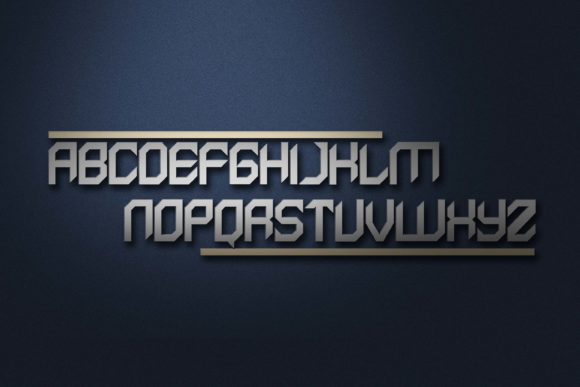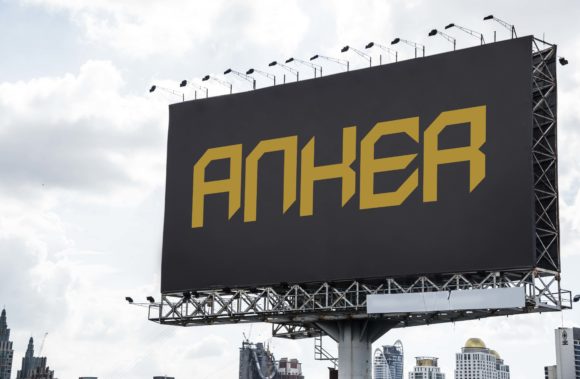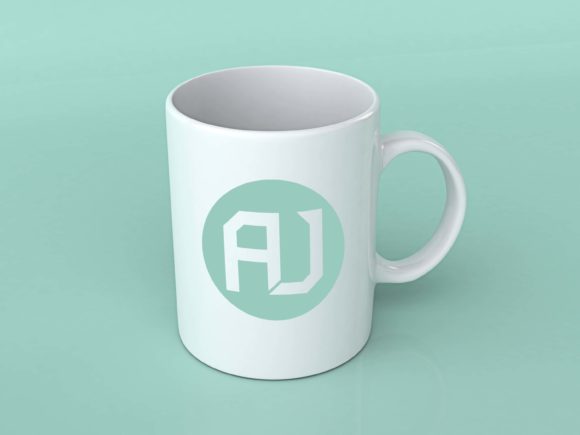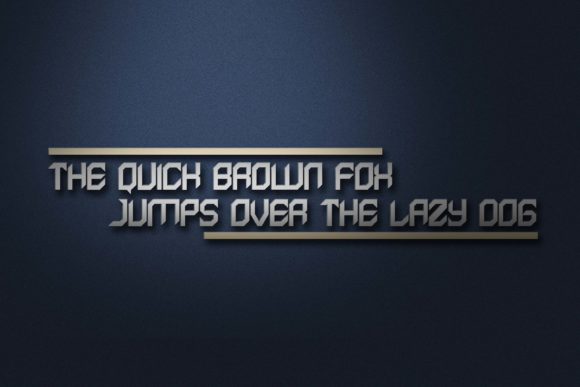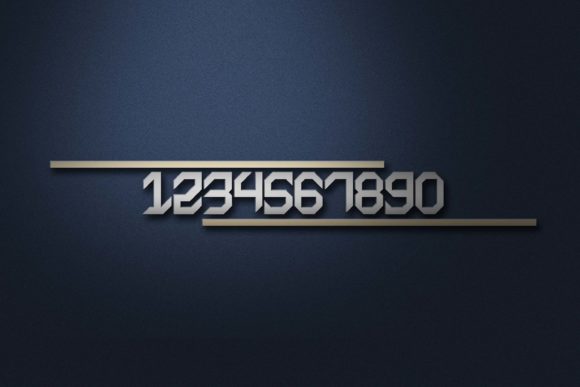
Introducing Anker Remake Font: A Modern Take on a Classic
In the world of typography, few fonts have stood the test of time like the classic “Anker”. With its unique charm and character, Anker has been a favorite among designers and crafters for decades. However, as design trends evolve and technology advances, the need for updated and refined fonts has become increasingly important. That’s where Anker Remake comes in – a font reboot of the original “Anker” that refines both letters, numbers, symbols, and kerning.
The Original Anker: A Brief History
First introduced in the early 20th century, Anker was designed to be a versatile and legible font suitable for a wide range of applications, from signage and advertising to publishing and packaging. Its distinctive features, such as the characteristic “a” and “g” shapes, quickly made it a popular choice among designers. Over the years, Anker has been used in countless projects, from vintage posters to modern branding campaigns.
What is Anker Remake?
Anker Remake is a meticulous reworking of the original Anker font, aimed at preserving its classic charm while adapting it to modern design needs. This updated version boasts refined letterforms, numbers, symbols, and kerning, making it an ideal choice for designers and crafters looking for a reliable and stylish font. The remake process involved carefully re-examining each character, ensuring that they are not only aesthetically pleasing but also highly legible across various mediums.
Key Features of Anker Remake
- Refined Letterforms: Anker Remake features updated letterforms that maintain the essence of the original while presenting a cleaner, more contemporary look.
- Improved Kerning: The remake includes meticulously adjusted kerning, ensuring that text sets smoothly and reads comfortably, whether in headings or body text.
- Expanded Character Set: Anker Remake includes a comprehensive range of characters, including numbers, symbols, and special characters, making it versatile for various design projects.
- Digital Optimization: Designed with digital use in mind, Anker Remake performs exceptionally well in both print and digital formats, making it suitable for a wide range of applications.
Why Choose Anker Remake?
For designers and crafters, selecting the right font is crucial for the success of a project. Anker Remake offers several compelling reasons to be your go-to font:
- Timeless Appeal: With its roots in a classic font, Anker Remake brings a timeless quality to your designs, ensuring they remain relevant for years to come.
- Versatility: Its comprehensive character set and adaptable design make Anker Remake suitable for a broad spectrum of projects, from branding and advertising to web design and crafting.
- Legibility: The font’s careful refinement ensures high legibility, making it perfect for both headings and body text.
- Ease of Use: Anker Remake is designed to work seamlessly across different platforms and software, providing a hassle-free experience for designers.
Using Anker Remake in Your Projects
Anker Remake’s flexibility makes it an excellent addition to any designer’s toolkit. Here are a few ideas on how to incorporate it into your projects:
- Branding and Logo Design: Use Anker Remake to create memorable and stylish logos that stand out.
- Web Design: Its digital optimization makes it perfect for website designs, offering a professional look and feel.
- Print Materials: From business cards to posters, Anker Remake brings a touch of elegance and sophistication to any print material.
- Crafting and DIY Projects: Add a professional touch to your crafting projects, such as handmade cards, packaging, or signage.
| Author | IWM Design |
Anker Remake is more than just a font – it’s a bridge between the classic and the contemporary, offering designers and crafters a versatile tool for their creative projects. With its refined design, expanded character set, and focus on legibility, Anker Remake is poised to become a favorite among those who value both style and functionality. Whether you’re working on a branding campaign, a web design project, or a crafting endeavor, Anker Remake is an excellent choice that will elevate your work to new heights.